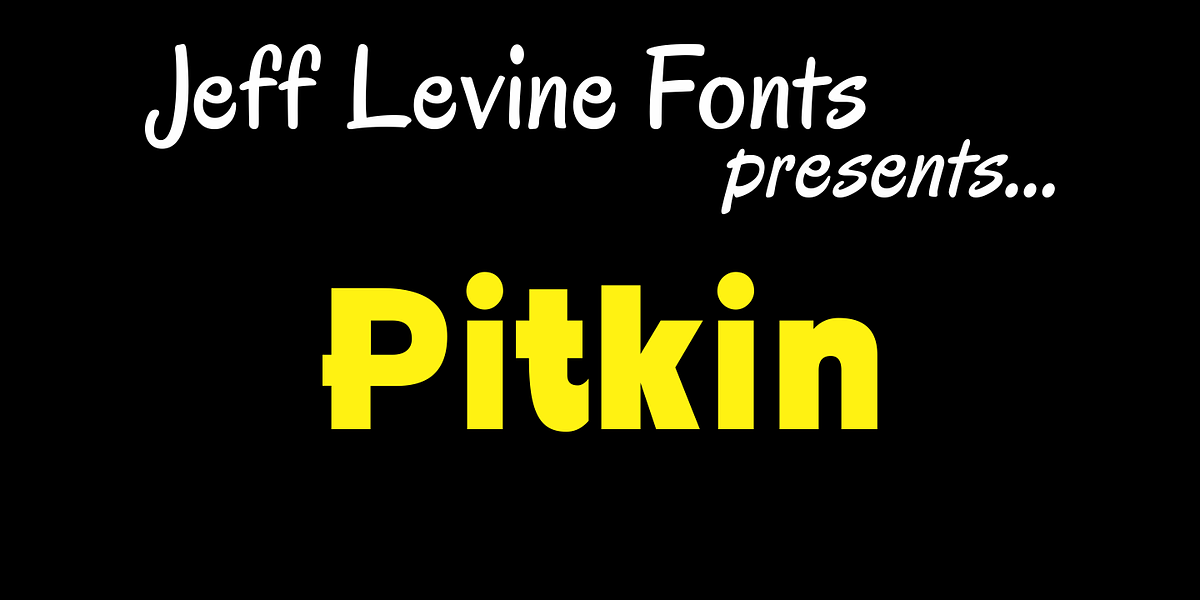
Pitkin JNL
Borrowing from the 1940s, and inspired by printed text found in an old catalog, the slightly imperfect letterforms of Pitkin JNL emulate the hand-lettered look of signs and show cards.